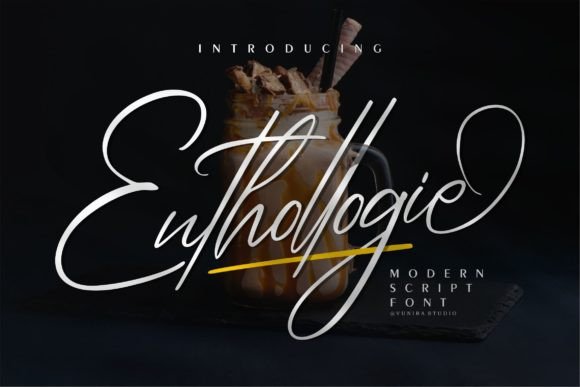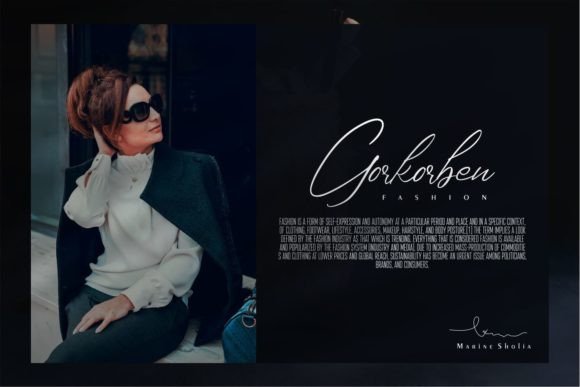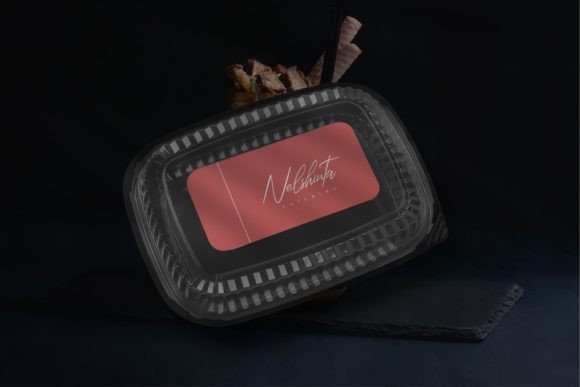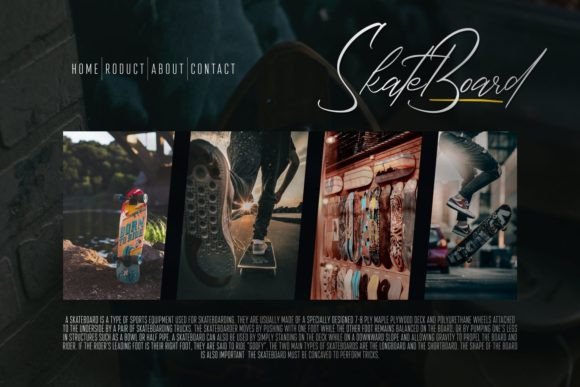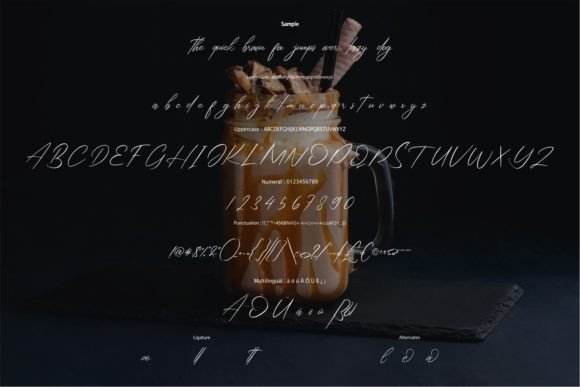
About Enthollogie Font
Introducing Enthollogie, a stylish and elegant script font crafted to bring a touch of sophistication to your projects. Add it confidently to your designs, and you’re sure to love the stylish and refined results it produces.
The script style of Enthollogie exudes elegance and class, making it an ideal choice for a variety of design applications. Whether you’re working on invitations, branding materials, elegant signage, or any project that requires a sophisticated touch, Enthollogie is designed to elevate your designs with its stylish and graceful appearance.
Consider using Enthollogie to bring a refined and elegant look to your invitations, adding a touch of sophistication to your branding materials, or creating stylish and upscale signage. The font’s stylish script design allows it to seamlessly integrate into various design contexts, providing a timeless and elegant quality to your work.
In essence, Enthollogie is more than just a font; it’s a design tool that adds a sense of style and sophistication to your projects. Let it be the elegant script font that enhances your designs, leaving a lasting impression with its refined and stylish presence.